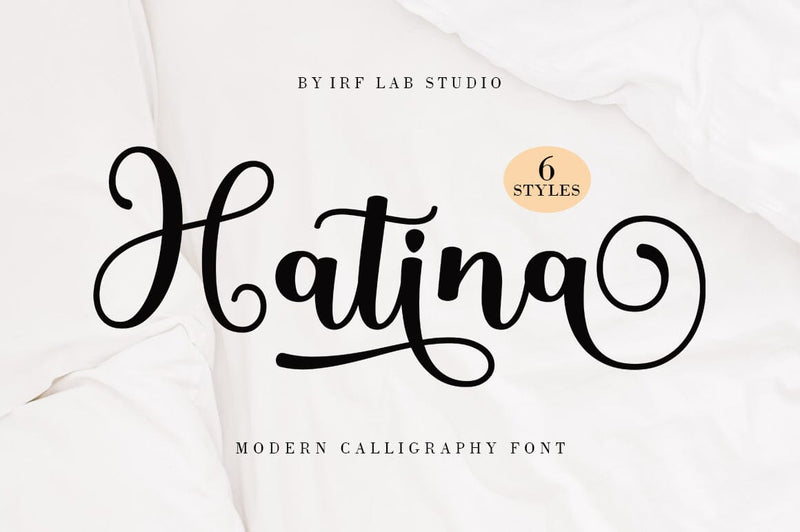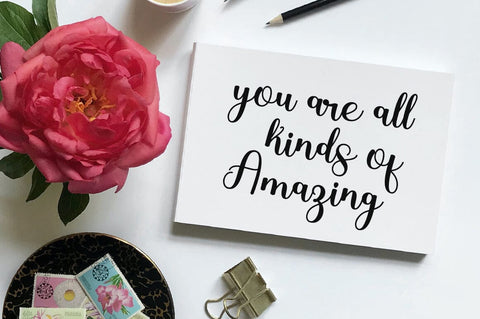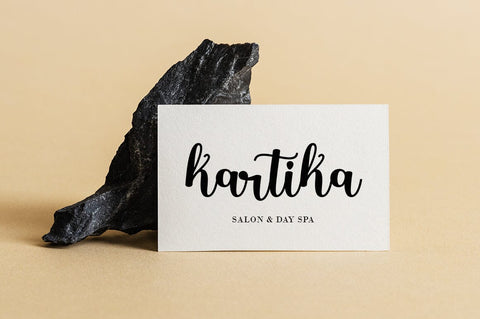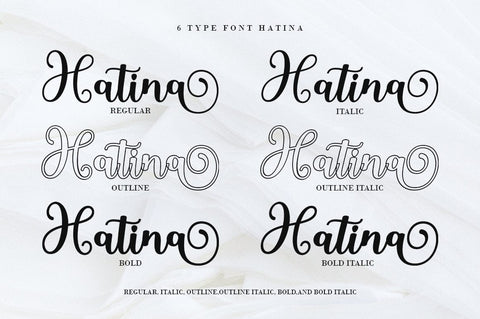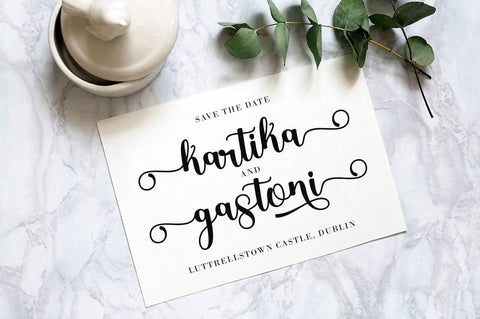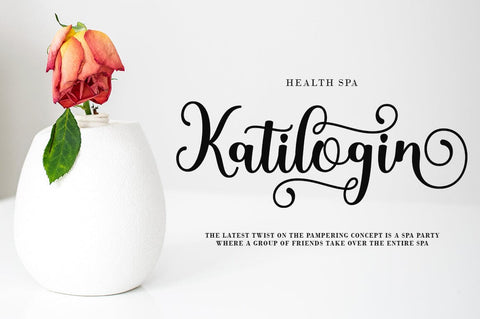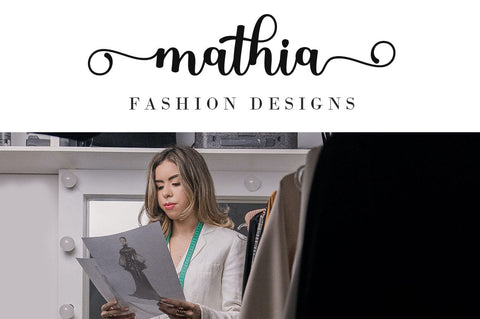
Hatina - Modern Calligraphy Font
Hatina is a beautiful Calligraphy font with a touch of love. Hatina is perfect for branding projects, home appliance design, product packaging, use in business cards, invitation cards, etc.